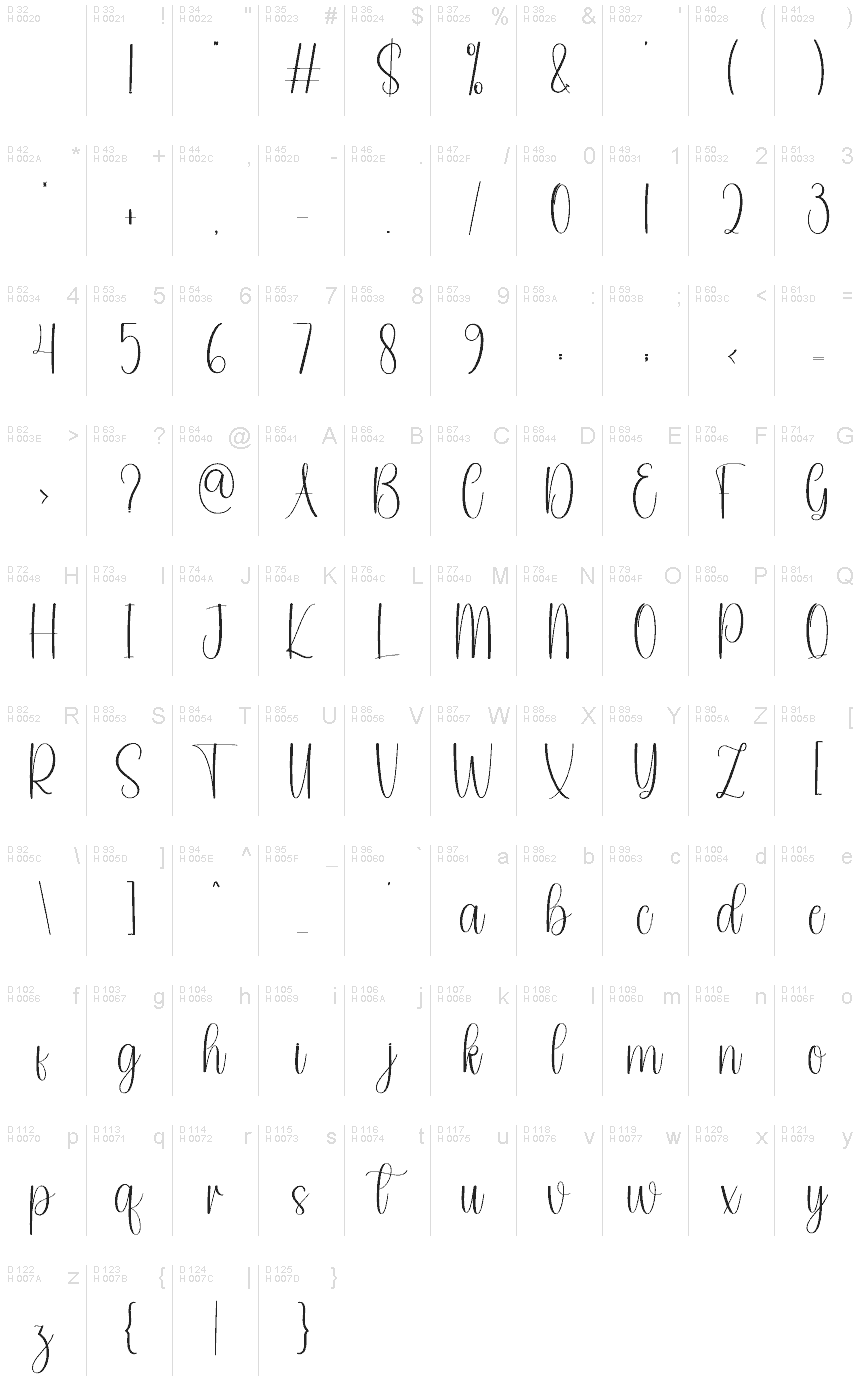
County
County font is a free calligraphy font with a condensed structure designed by Andi Moz. Featuring a modern script design and elegant, flowing strokes, the typeface maintains an expressive and sophisticated presence. The inviting design displays decorative accents that add to its uniqueness.
County is perfect for greeting cards, wedding invitations, magazine covers, birthday invitations, bookmarks design, Expo stands signages design, and more. Other fun projects ideas include company branding shapes labeling or packaging design or posters project.